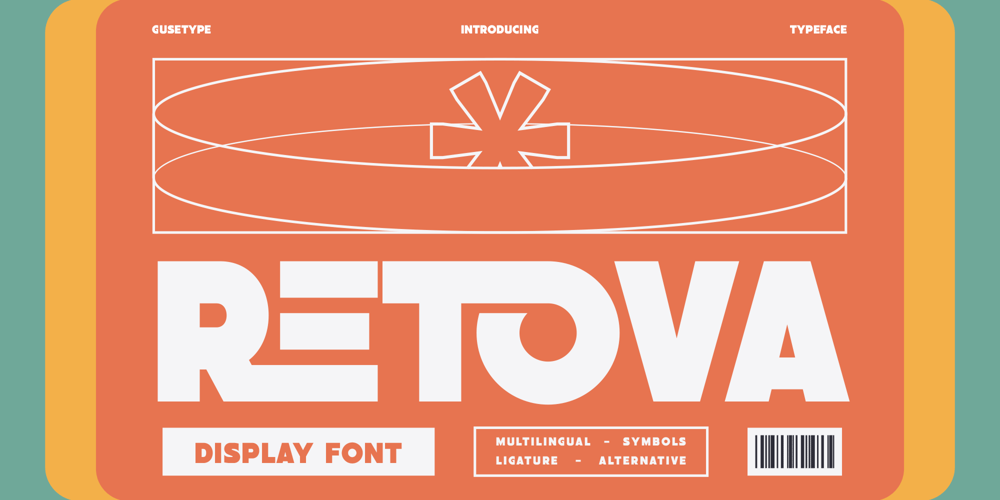
Retova Font Family was designed by Guntur Septyan and published by GuseType. Retova contains 1 styles and family package options. Retova is a sans-serif display font with clean lines, proportional characters, and a neat design that exudes professionalism, making it suitable for branding. However, to add a little bit playful sense, the lowercase character in this font are designed with smoother curves and thick lines that giving it a youthful appearance. Retova can be used for various projects such as posters, logos, logotypes, banners, magazine headlines, and many more. Retova font also includes features such as symbols, multilingual support, alternatives, and ligatures that can make your words more unique and beautiful.Thank you for coming.